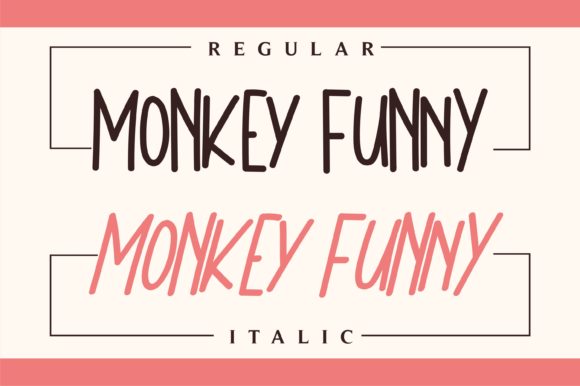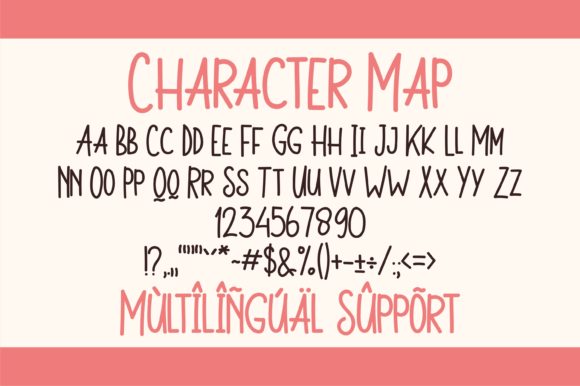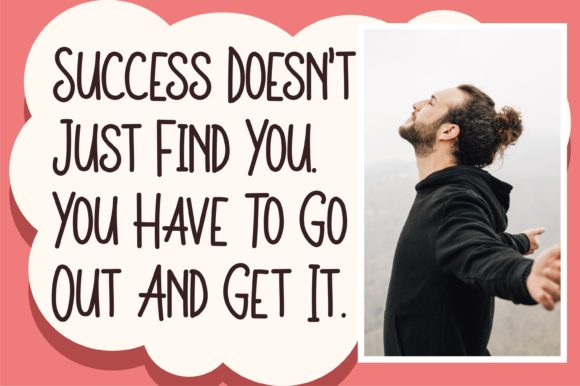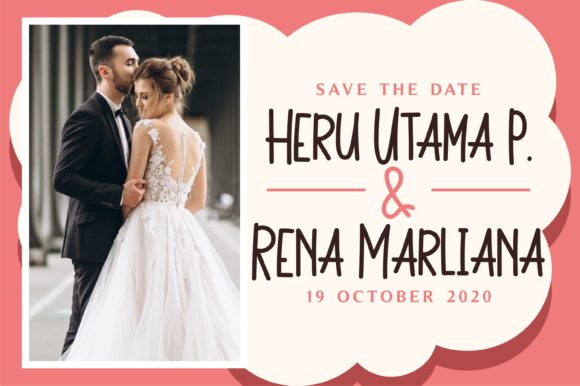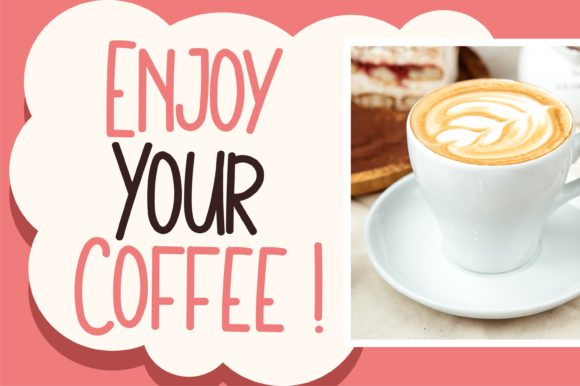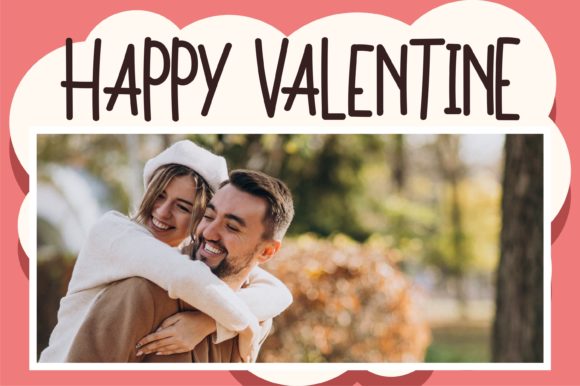
Introduction to Monkey Funny Font
Have you ever been working on a creative project, pouring your heart and soul into it, only to realize that the right font is missing to bring it all together? That’s exactly what happened to me last week while designing a promotional poster for a friend’s art exhibit. I was browsing through various design resources, searching for the perfect font that would capture the playful and quirky essence of the event, when I stumbled upon the Monkey Funny Font.
At first glance, the Monkey Funny Font appears to be a simple and natural handwritten font, with its thin and tall design making it perfect for a variety of designs, both formal and informal. But what truly sets it apart is its high quality and versatility, making it an invaluable resource for designers looking to add a touch of personality to their creative projects.
Key Features of Monkey Funny Font
- Unique, playful font style with a transparent background for flexibility
- Perfect for use in digital and print media, including social media graphics, posters, and more
Honest Review: Monkey Funny Font
As a designer, I’m always on the lookout for high-quality design resources to elevate my creative projects. Recently, I stumbled upon the Monkey Funny Font, and I’m excited to share my honest review.
What works well about this font is its playful and whimsical feel. The Monkey Funny Font is perfect for projects that require a lighthearted and humorous tone. The font is also available for free download, which is a great bonus for designers on a budget.
Some of the standout features of the Monkey Funny Font include:
- ✨ High-quality design that looks great on both digital and print materials
- ✨ Transparent background, making it easy to layer and manipulate
However, there are some limitations to consider. The Monkey Funny Font may not be suitable for formal or professional projects, as it can come across as too casual. Additionally, the font may not be as versatile as some other design resources on the market.
Overall, I’m impressed with the Monkey Funny Font. While it may not be perfect for every project, it’s a great addition to any designer’s toolkit. I would recommend it for designers working on creative projects that require a fun and playful tone.
The Monkey Funny Font is a high-quality design resource perfect for creative projects that require a playful and humorous touch. Use it for social media graphics, memes, or any other project where you want to add a bit of fun and whimsy.
To get the most out of the Monkey Funny Font, experiment with different font sizes, colors, and styles to create a unique look. You can also use the font in combination with other design elements, such as images or graphics, to add depth and interest to your project.
Alternatives to Monkey Funny Font
Comic Sans MS is a classic, high-quality sans-serif font that is perfect for creative projects, especially when you need a design resource with a friendly tone. It features a transparent background and is suitable for use in a variety of contexts, including logos, advertisements, and web pages. When to use: Informal, friendly, and approachable projects. How it compares to Monkey Funny Font: Comic Sans MS is more formal than Monkey Funny Font, but still maintains a playful tone.
Pacifico is a high-quality, elegant script font that is ideal for creative projects requiring a touch of sophistication. It features a transparent background and is perfect for use in logos, advertisements, and web pages. When to use: Luxury, high-end, and elegant projects. How it compares to Monkey Funny Font: Pacifico is more elegant and sophisticated than Monkey Funny Font, but lacks its playful tone.